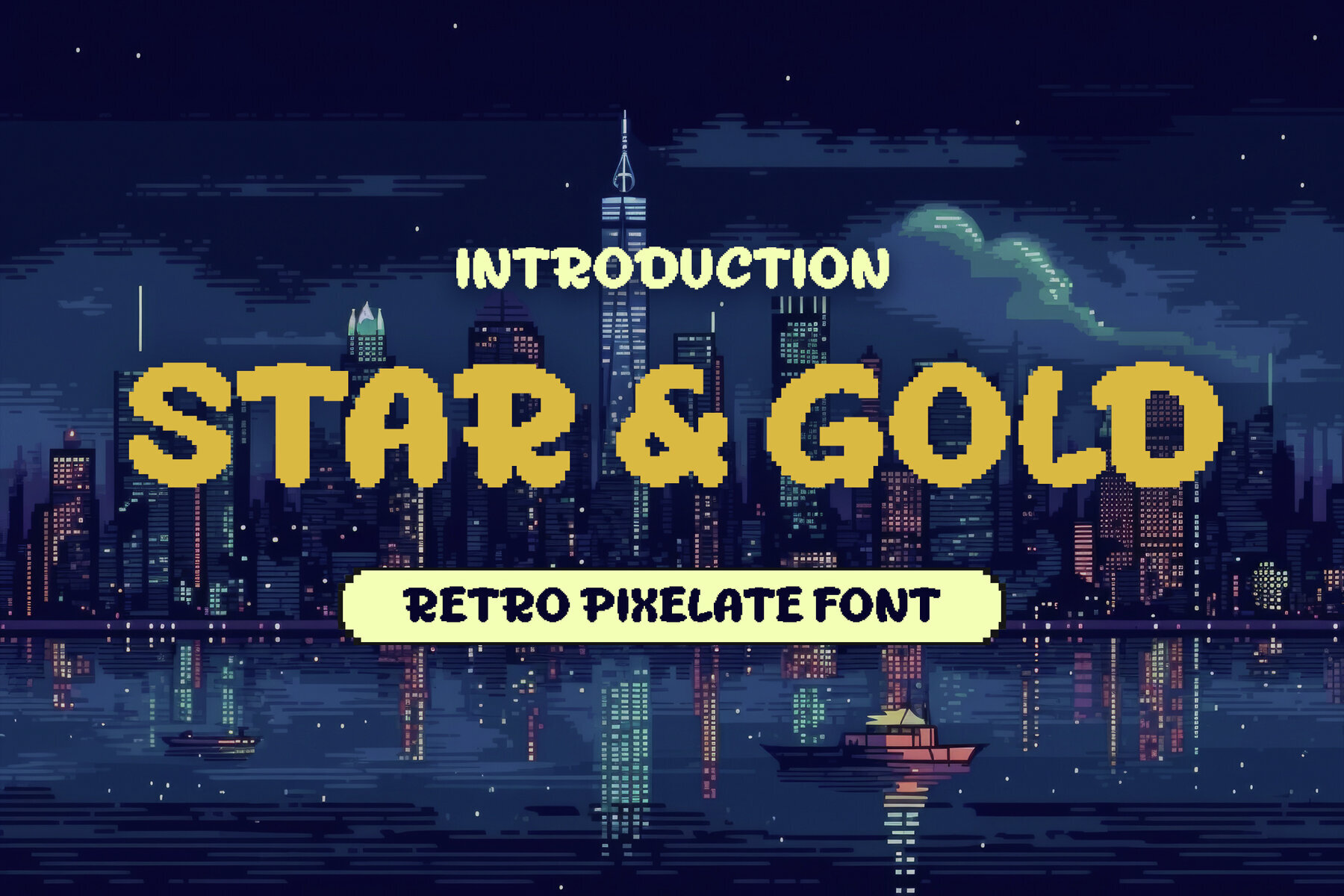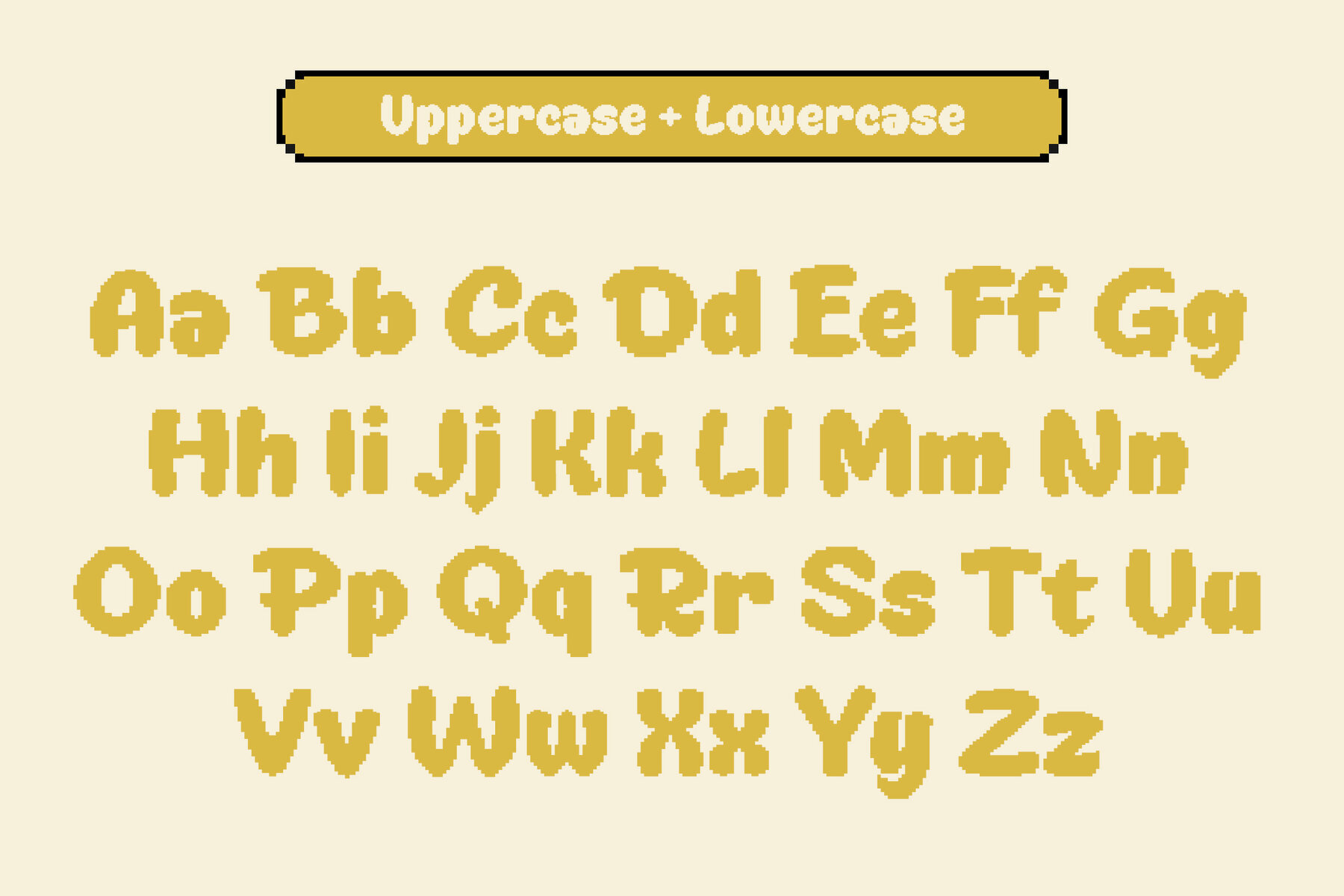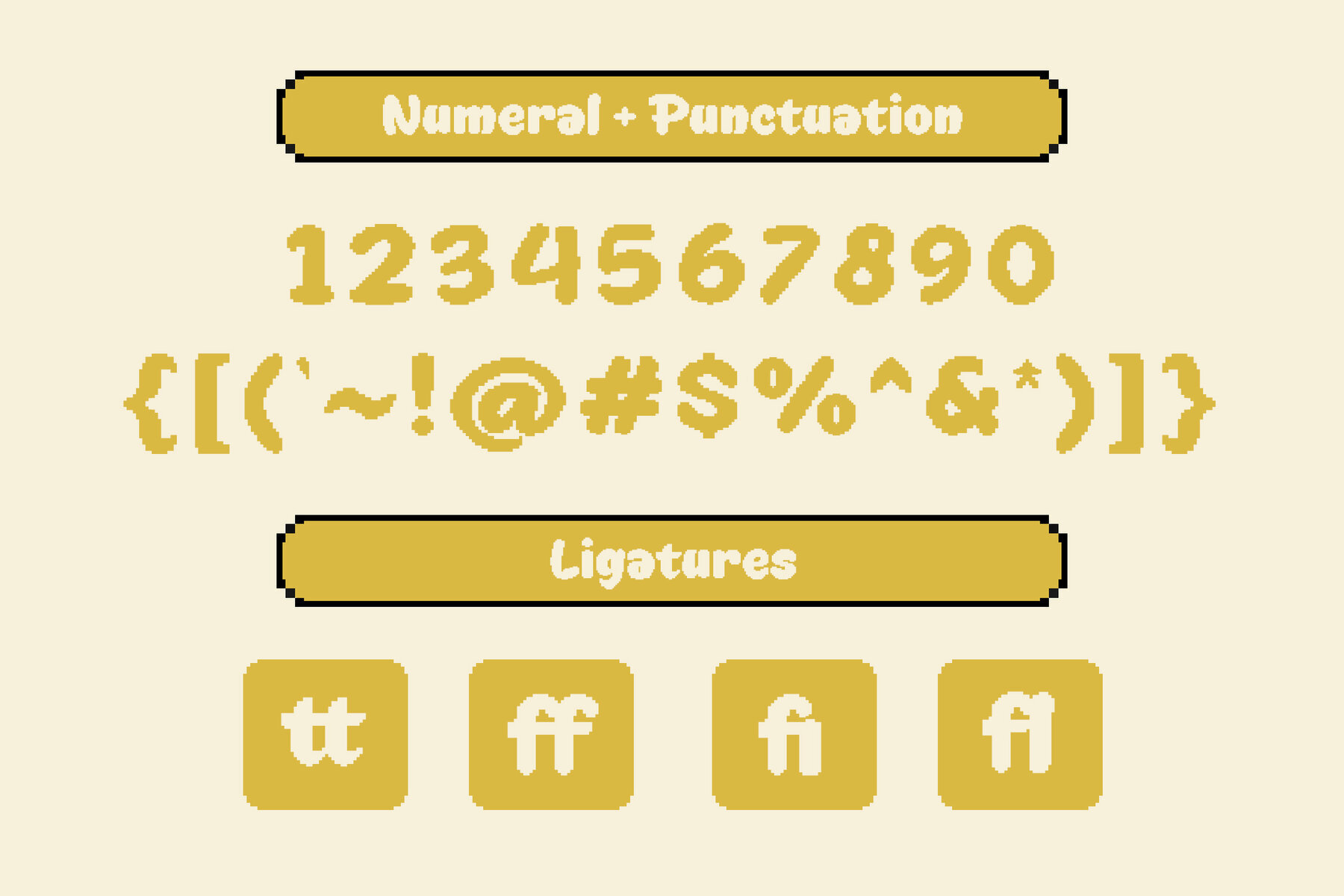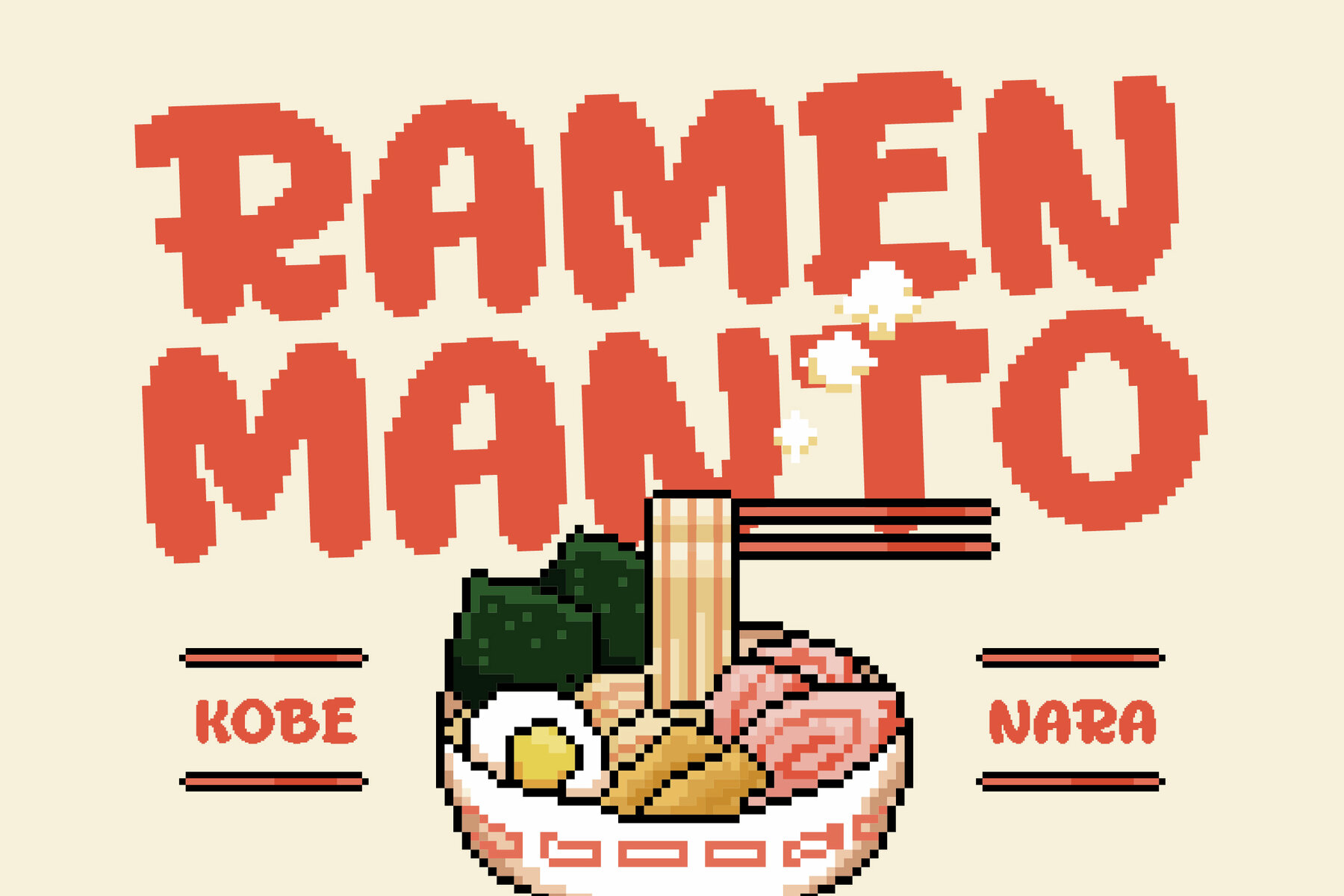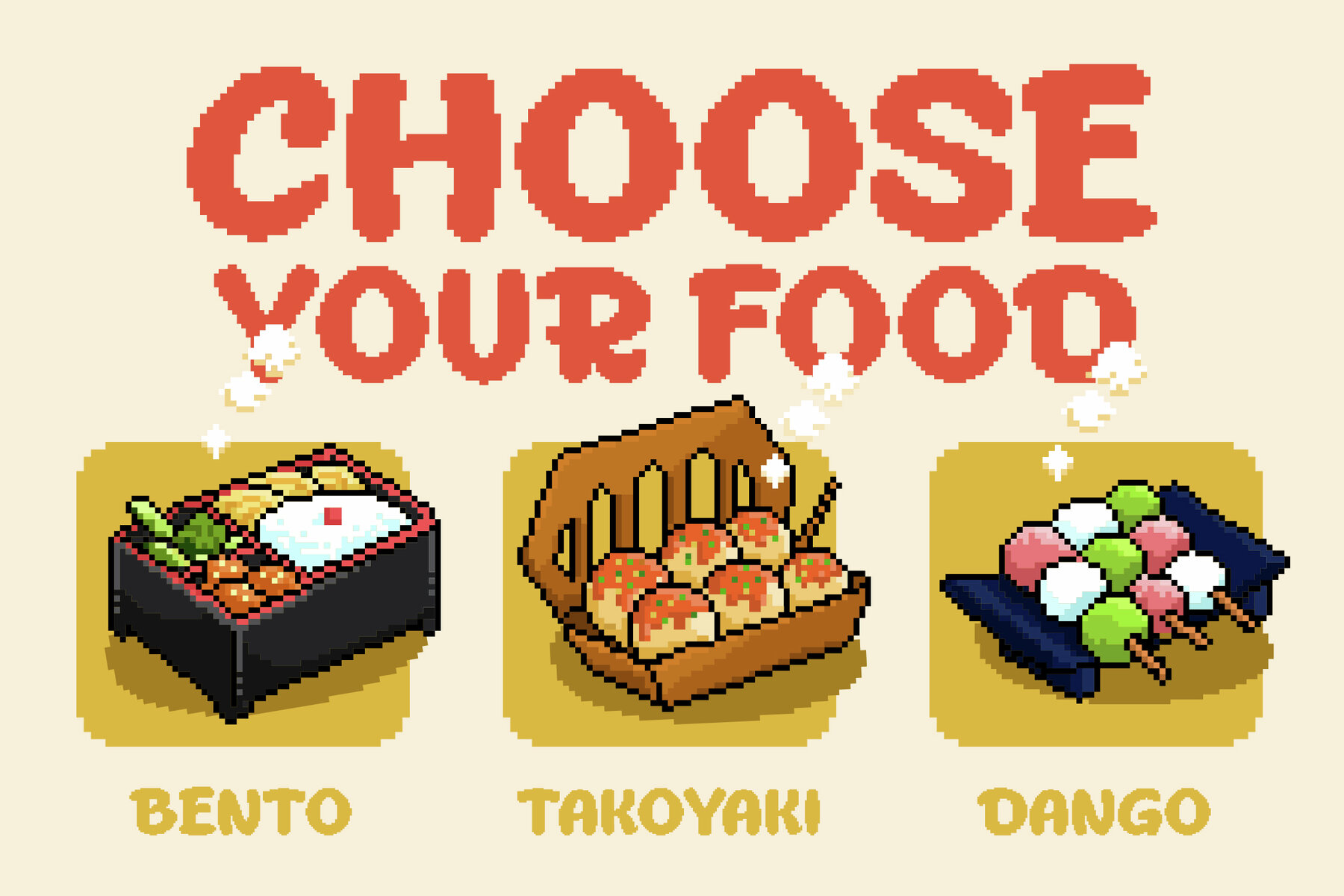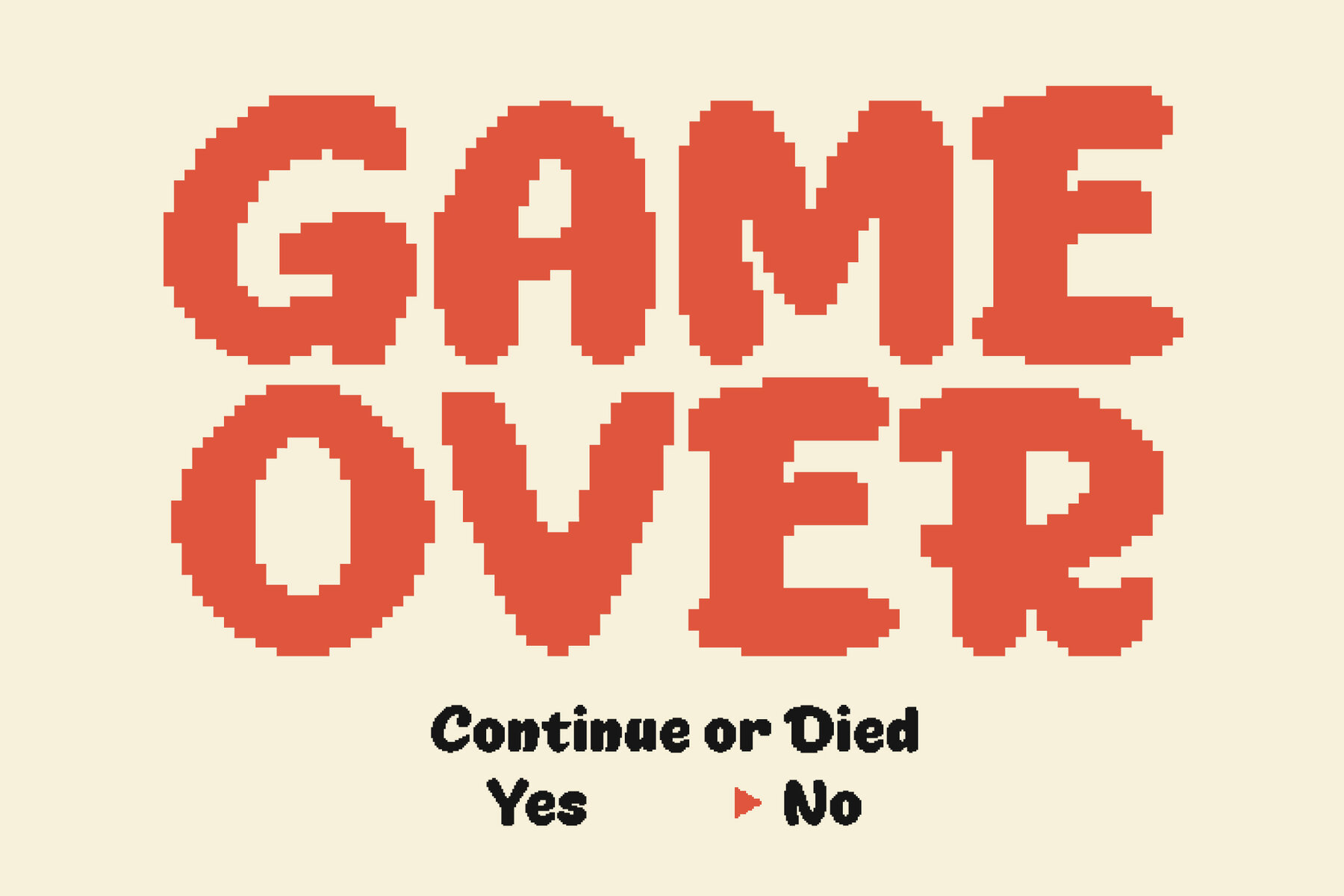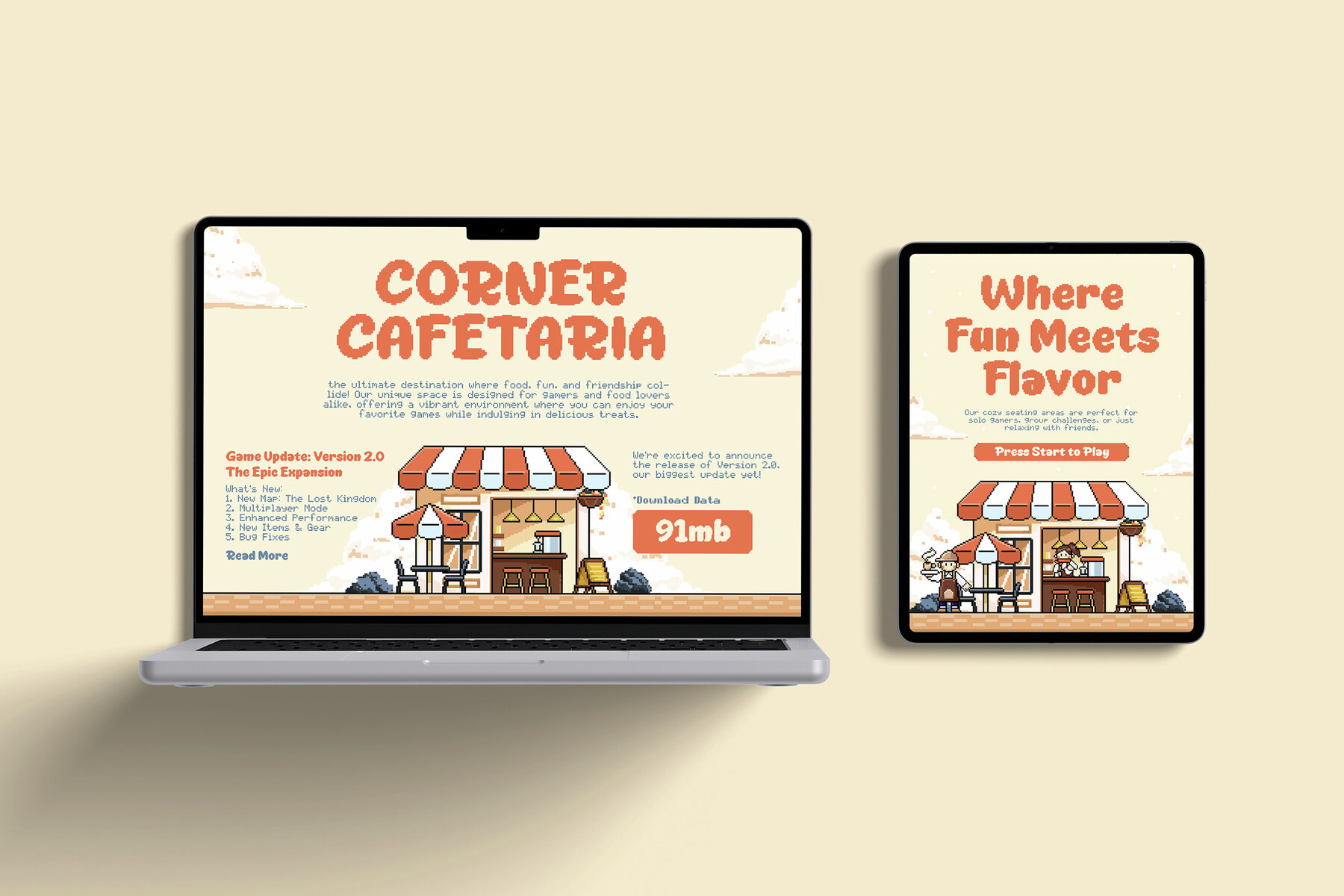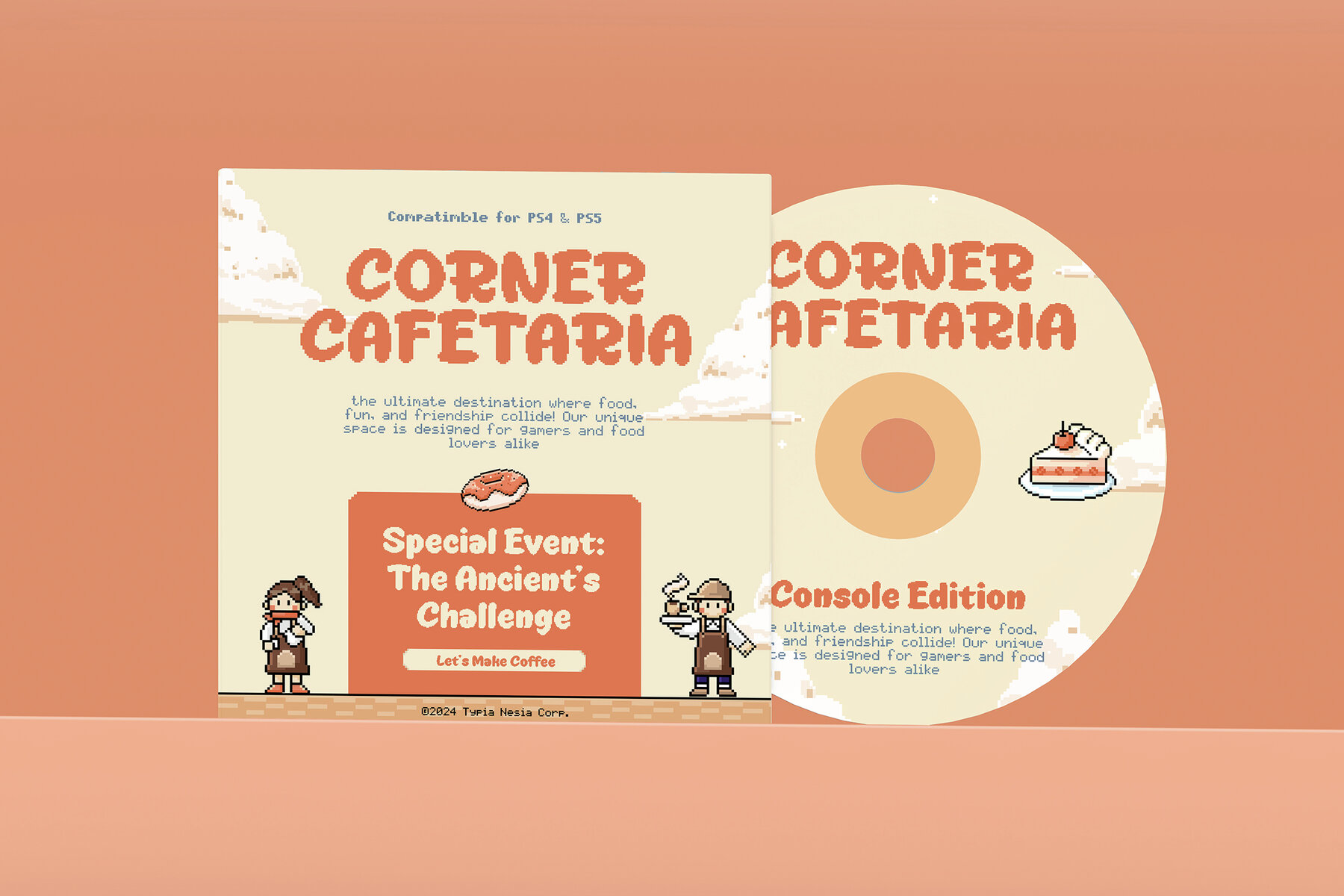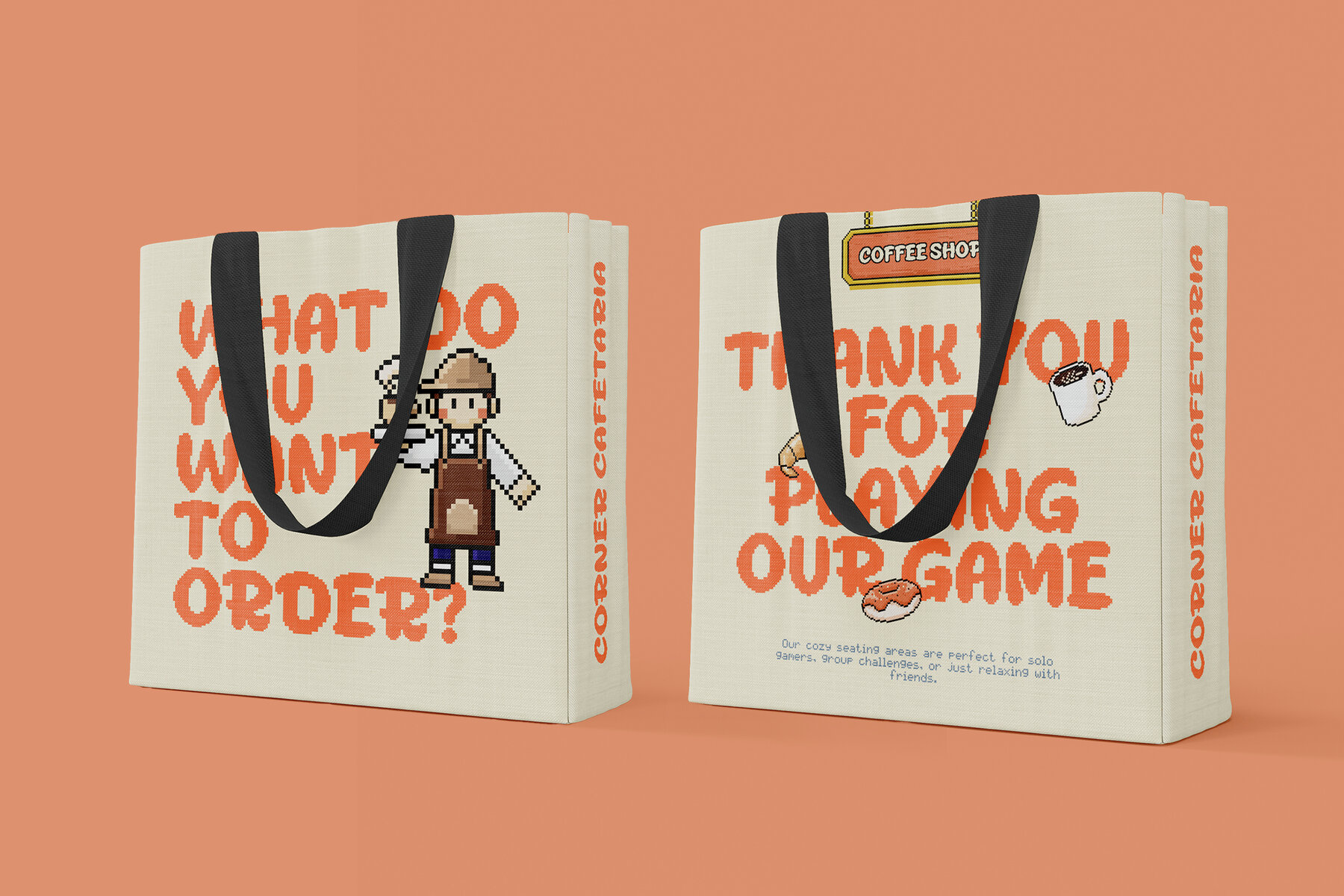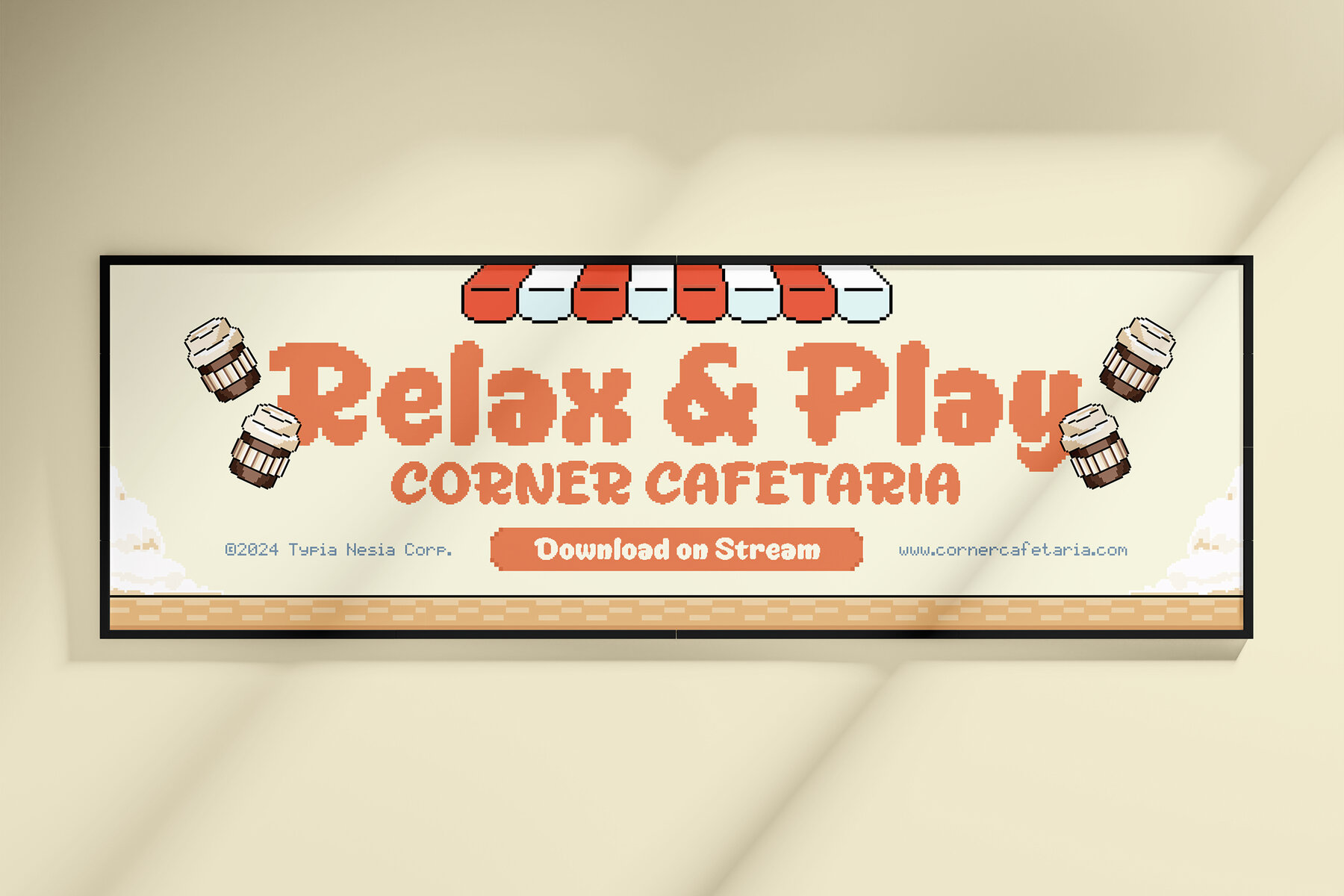
Star and Gold Font
Star and Gold Regular
Star & Gold is a Retro Pixelate Font that blends nostalgic and modern design elements. With pixel-perfect precision, this font evokes memories of classic video games while adding a playful, digital flair to your creative projects. It's perfect for video game graphics, tech-themed designs, retro-inspired posters, branding, logos, packaging, and websites. Whether you’re designing a game interface or creating eye-catching typography for a digital event, Star & Gold delivers a bold and fun look.
Featuring uppercase and lowercase letters, punctuation, numerals, ligatures, alternate characters, and full multilingual support, this pixelated design balances creativity and functionality. This ensures varied design applications while maintaining readability. Expertly crafted, Star & Gold is ideal for designers aiming to capture a retro gaming vibe or fun digital theme in their work. With its comprehensive features and pixel-perfect styling, this font adds a unique, playful touch to any project.